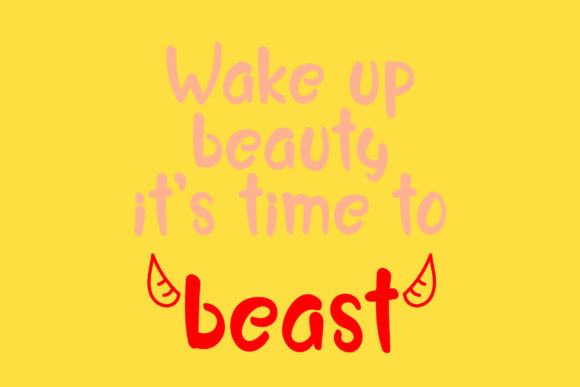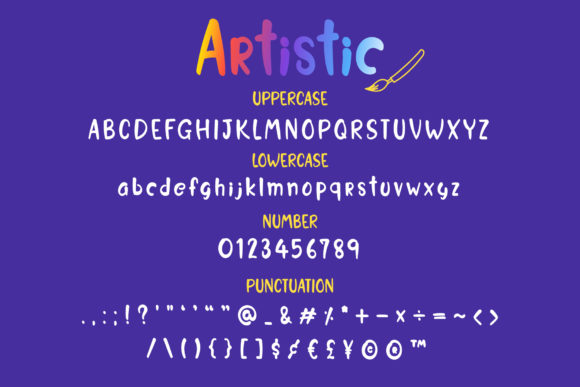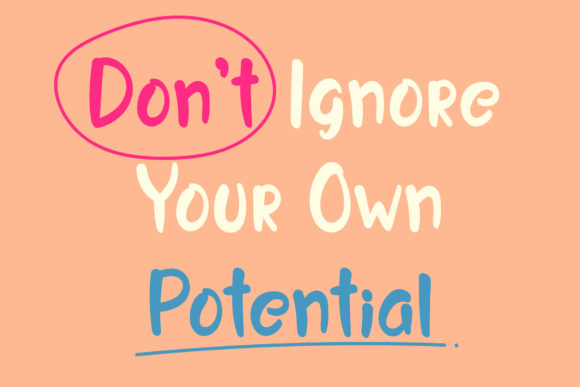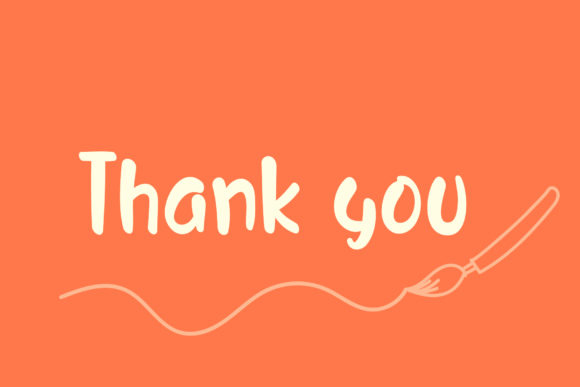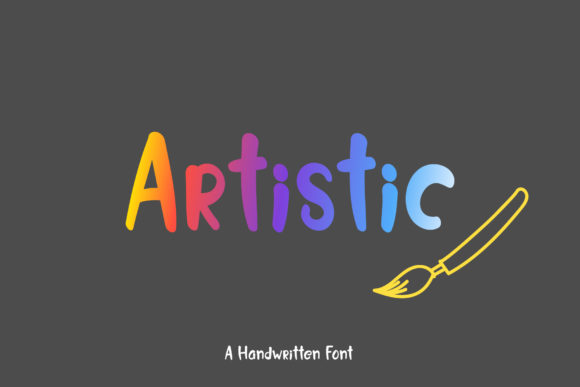
Introducing Artistic Font: Add a Touch of Whimsy to Your Designs
Are you tired of using the same old fonts in your design projects? Do you want to add a touch of personality and whimsy to your creations? Look no further than Artistic Font, a sweet and playful handwritten font that’s perfect for designers and crafters alike. In this article, we’ll take a closer look at Artistic Font, its unique features, and how you can use it to elevate your design projects.
The Story Behind Artistic Font
Artistic Font was created with the help of a brush pen, giving it a unique, hand-crafted feel that’s perfect for adding a personal touch to your designs. The font’s creator aimed to craft a typeface that’s a little bit quirky, yet still easy to read and understand. The result is a font that’s both playful and sophisticated, making it perfect for a wide range of design projects.
Key Features of Artistic Font
So, what makes Artistic Font so special? Here are just a few of its key features:
- Handwritten with a brush pen: Artistic Font was created using a brush pen, giving it a unique, hand-crafted feel that’s perfect for adding a personal touch to your designs.
- Playful and whimsical: Artistic Font is a playful and whimsical font that’s perfect for adding a touch of personality to your designs.
- Easy to read: Despite its playful nature, Artistic Font is still easy to read and understand, making it perfect for use in a wide range of design projects.
- Versatile: Artistic Font can be used for a wide range of design projects, from greeting cards and invitations to posters and social media graphics.
Uses for Artistic Font
So, what can you use Artistic Font for? The possibilities are endless! Here are just a few ideas to get you started:
- Greeting cards and invitations: Artistic Font is perfect for creating personalized greeting cards and invitations for special occasions.
- Posters and flyers: Add a touch of personality to your posters and flyers with Artistic Font.
- Social media graphics: Use Artistic Font to create eye-catching social media graphics that stand out from the crowd.
- Branding and packaging: Artistic Font can be used to create unique and eye-catching branding and packaging for your products.
Tips for Using Artistic Font
Here are a few tips for using Artistic Font in your design projects:
- Experiment with different colors: Artistic Font looks great in a variety of colors, so don’t be afraid to experiment and find the perfect hue for your design.
- Pair with other fonts: Artistic Font pairs well with a variety of other fonts, so try combining it with other typefaces to create a unique look.
- Use it sparingly: While Artistic Font is perfect for adding a touch of personality to your designs, it can be overwhelming if used too much. Use it sparingly to create a balanced look.
Artistic Font is a unique and versatile font that’s perfect for designers and crafters alike. Its playful and whimsical nature makes it perfect for adding a touch of personality to your designs, while its ease of use and readability make it suitable for a wide range of projects. Whether you’re creating greeting cards, posters, or social media graphics, Artistic Font is sure to make your ideas stand out. So why not give it a try and see what amazing designs you can create?